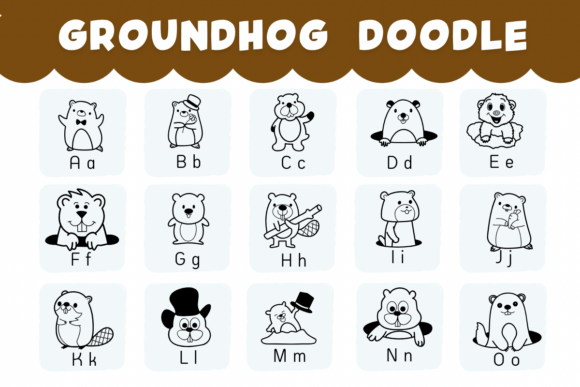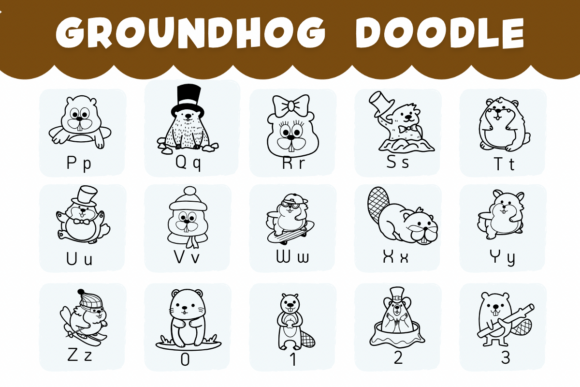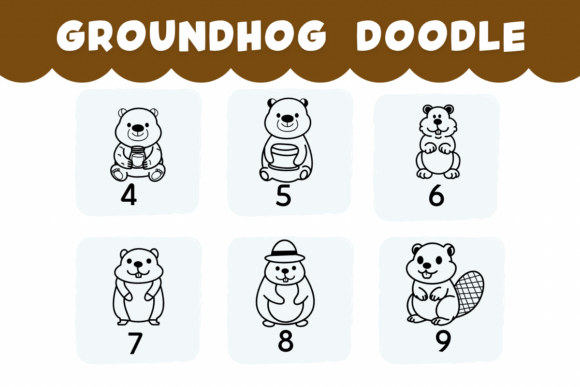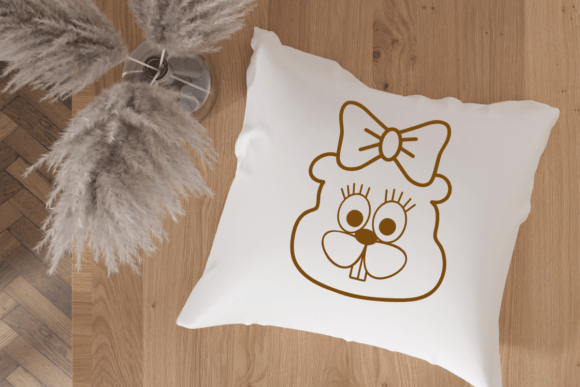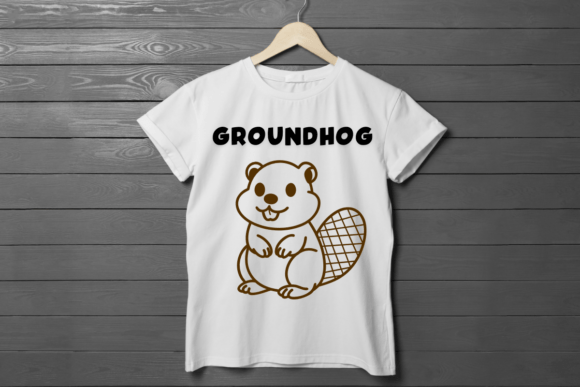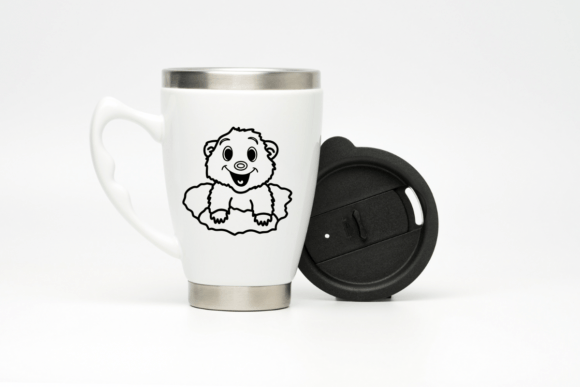
Introducing the Groundhog Doodle Font: Add a Touch of Whimsy to Your Designs
Are you looking for a unique and playful way to add some personality to your designs? Look no further than the Groundhog Doodle Font! This fun and adorable dingbat font is filled with cute groundhog images that are sure to bring a smile to anyone’s face. In this article, we’ll take a closer look at the Groundhog Doodle Font and explore its features, uses, and benefits for designers and crafters.
What is the Groundhog Doodle Font?
The Groundhog Doodle Font is a special type of font that features adorable groundhog illustrations instead of regular letters. This means that when you type out a message or word, you’ll get a corresponding groundhog image instead of the standard alphabet letter. The result is a fun and playful design that’s perfect for adding a touch of whimsy to your projects.
Features of the Groundhog Doodle Font
The Groundhog Doodle Font has several features that make it a great addition to any designer’s toolkit. Some of its key features include:
- Cute groundhog illustrations: The font features a range of adorable groundhog images, each one carefully designed to bring a smile to your face.
- Playful and fun: The Groundhog Doodle Font is perfect for adding a touch of personality to your designs. It’s great for creating fun and playful projects that are sure to stand out.
- Dingbat font: The font is a dingbat font, which means that it’s made up of images rather than standard letters.
- Perfect for crafts and invitations: The Groundhog Doodle Font is great for use in crafts, invitations, and other paper crafts.
Uses for the Groundhog Doodle Font
The Groundhog Doodle Font is a versatile font that can be used in a variety of different projects. Some ideas for using the font include:
- Crafts: The font is perfect for use in paper crafts, such as card making, scrapbooking, and origami.
- Invitations: Add a touch of whimsy to your invitations with the Groundhog Doodle Font. It’s perfect for birthday parties, baby showers, and other celebrations.
- Signs and posters: The font is great for creating eye-catching signs and posters. Use it to add a playful touch to your advertising or promotional materials.
- Digital designs: The Groundhog Doodle Font can also be used in digital designs, such as social media graphics, blog posts, and email newsletters.
Benefits of Using the Groundhog Doodle Font
There are several benefits to using the Groundhog Doodle Font in your designs. Some of the key benefits include:
- Adds a touch of personality: The font adds a playful and fun touch to your designs, helping them to stand out from the crowd.
- Versatile: The font can be used in a variety of different projects, from crafts and invitations to signs and digital designs.
- Adorable illustrations: The font features adorable groundhog illustrations that are sure to bring a smile to anyone’s face.
The Groundhog Doodle Font is a fun and playful dingbat font that’s perfect for adding a touch of whimsy to your designs. With its cute groundhog illustrations, playful personality, and versatility, it’s a great addition to any designer’s toolkit. Whether you’re a crafter, designer, or DIY enthusiast, the Groundhog Doodle Font is sure to bring a smile to your face and inspire your creativity.